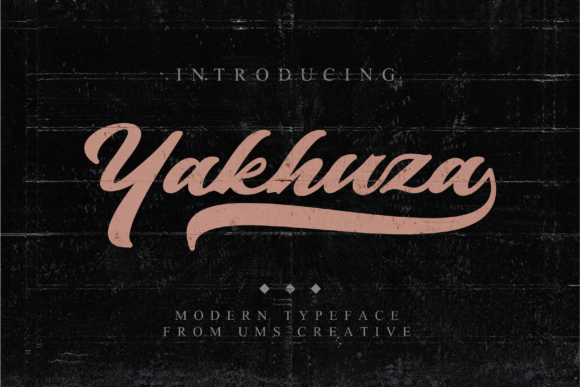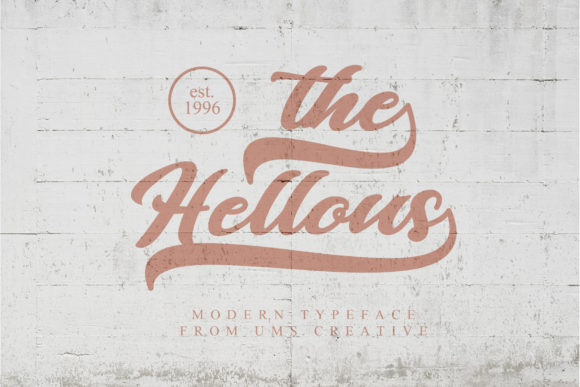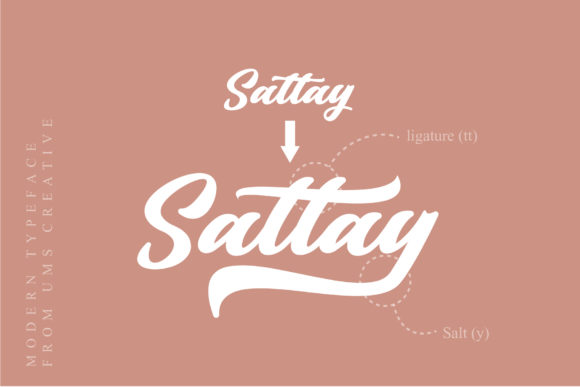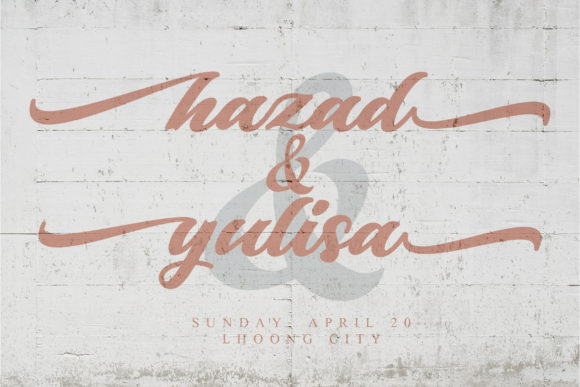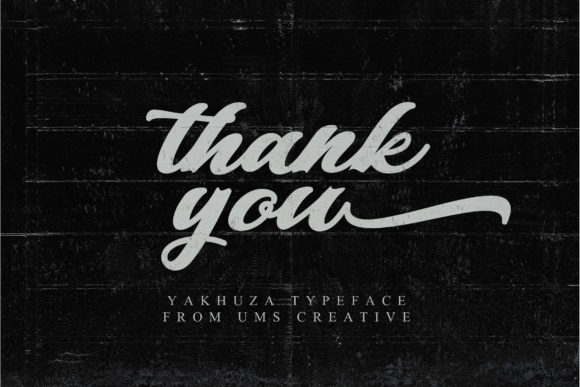
HomeScript FontsYakhuza Font Script Fonts Yakhuza Font FacebookXPinterestWhatsApp Yakhuza Font Poster 2 Yakhuza Font Poster 3 Yakhuza Font Poster 4 Yakhuza Font Poster 5 Yakhuza Font Poster 6 About Yakhuza Font Yakhuza is a stunning handwritten font with a contemporary feel. Get inspired by its authentic charm! DOWNLOAD ON CREATIVE FABRICAThis font is sold and delivered by Creative Fabrica. Font Canyon may earn a commission if you buy through this link. People also explored Paloma Origen – Handdrawn Vintage Font Ighon Font Rustgia Font Sunday Font Karlissta Font Night Stars Font Christmas Store Font Fairies Font Amilla Font 574 0 TagsYakhuza Font Previous articleWondy FontNext articleSleepbottom Font LEAVE A REPLY Cancel reply Comment: Please enter your comment! Name:* Please enter your name here Email:* You have entered an incorrect email address! Please enter your email address here Website: Save my name, email, and website in this browser for the next time I comment. Personal Use Free Quentin Personal Use Free Read more about this font Mixed Artistry Personal Use Free Read more about this font Bakk Trieng Personal Use Free Read more about this font Awkward Personal Use Free Read more about this font BLOG Free vs Paid Fonts: Why Investing in Premium Fonts Is Worth It Free vs Paid Fonts: Why Premium Fonts Are Worth It in 2025 The debate of free vs paid fonts continues in the design world. While... The 10 Best Handwriting Fonts to Add Personality to Your Designs Best Fonts for YouTube Videos: Make Your Thumbnails Stand Out Transform Your Website: Elevate Your Typography with 7 Best Web Font Generators